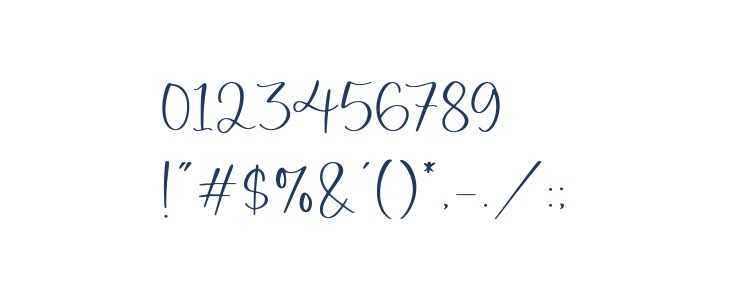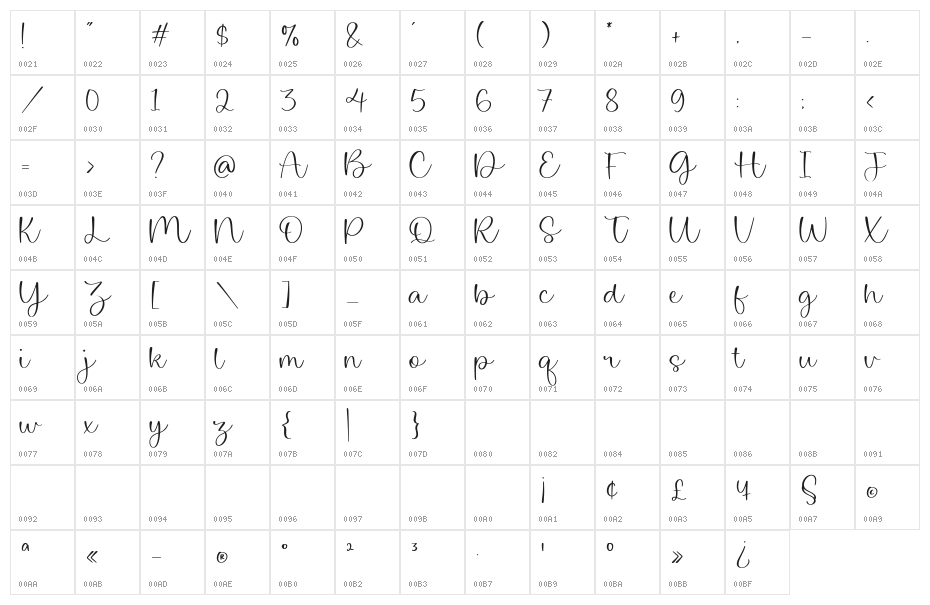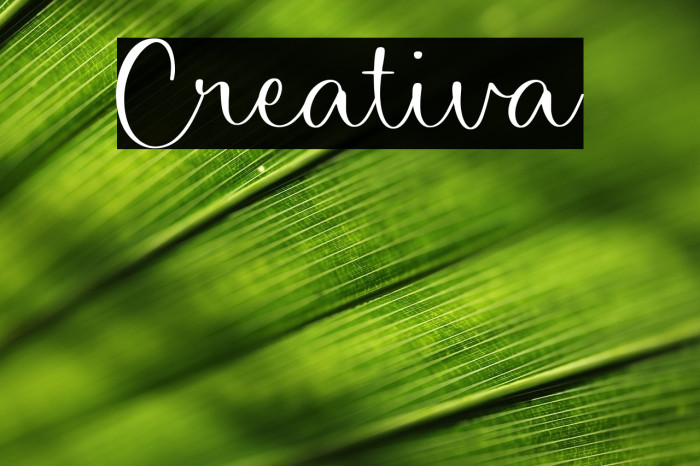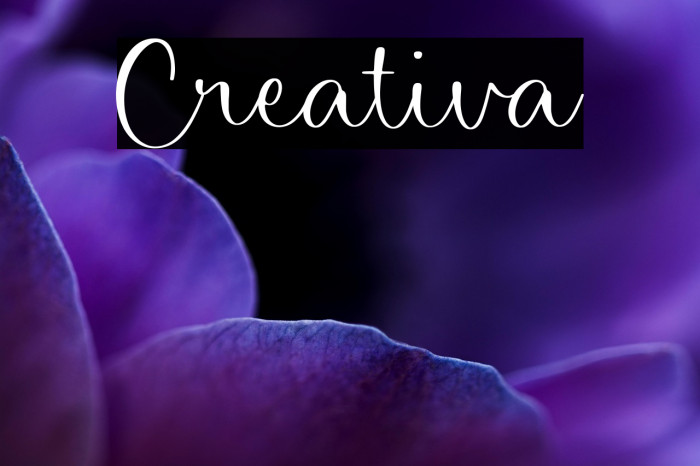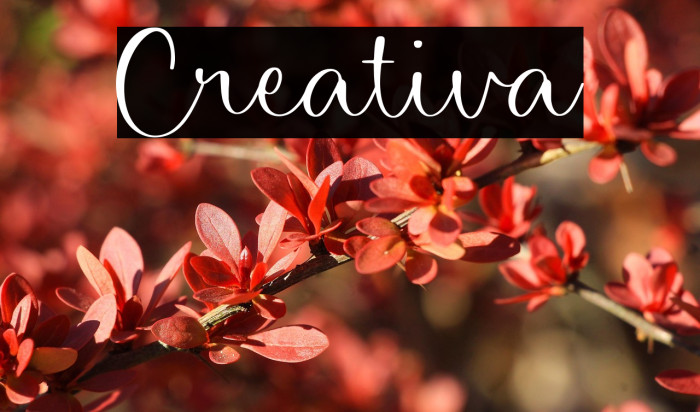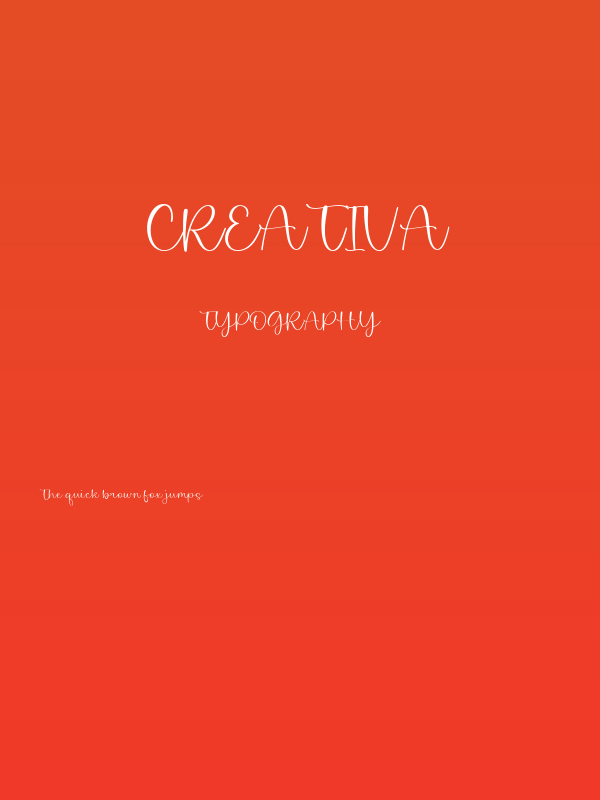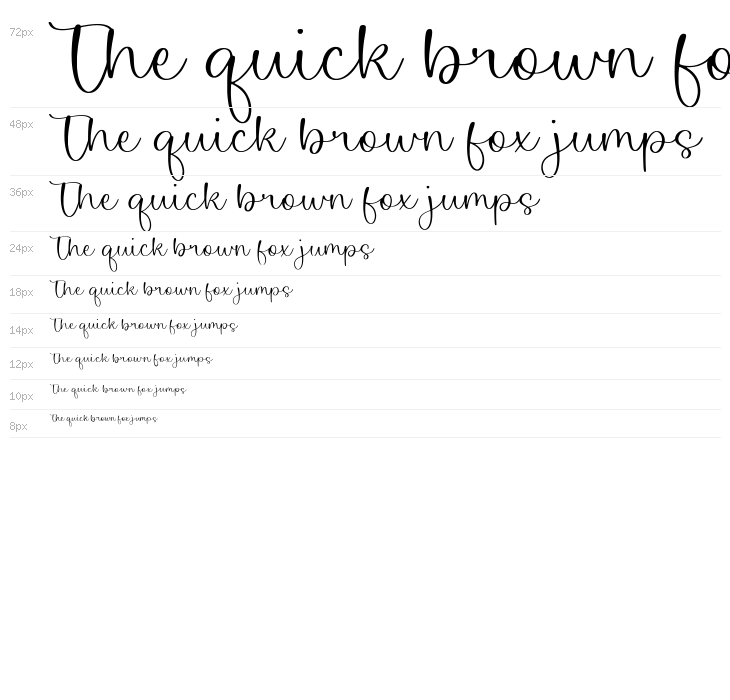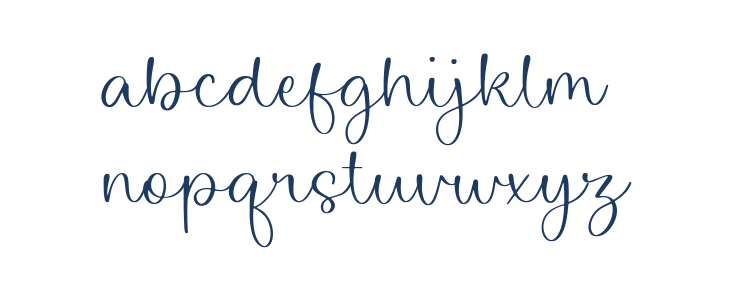
Creativa Font
Creativa Description
This font features a playful and elegant script style with smooth, flowing lines that mimic natural handwriting. The uppercase letters are slightly more structured, while the lowercase letters exhibit a charming, cursive flair. The numerals are consistent with the overall style, maintaining a balance between readability and decorative appeal. Special characters are thoughtfully designed to complement the alphabet, ensuring a cohesive look across all text elements. The font's graceful curves and loops make it ideal for projects that require a personal touch.